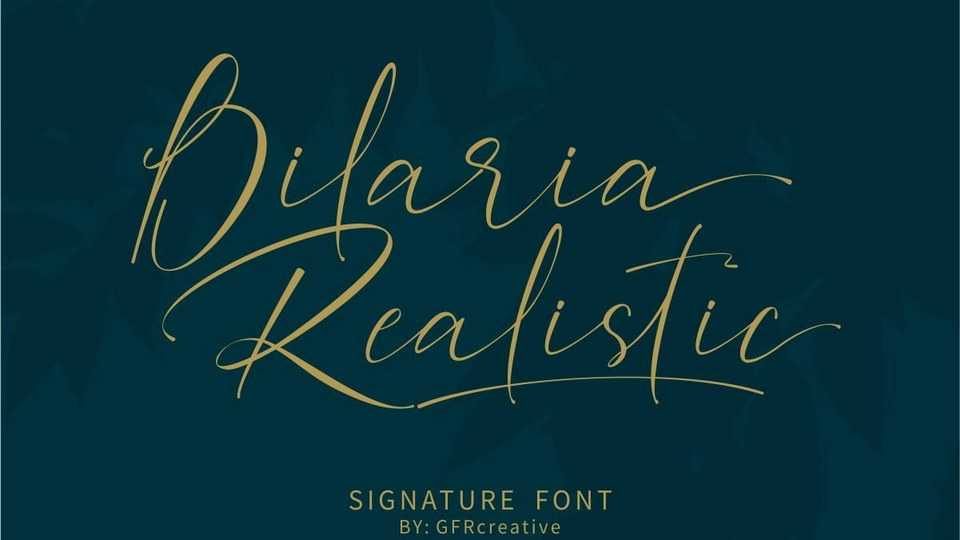
Download Bilaria Realistic font, a lovely and delicate script typeface that exudes elegance and class. Bilaria Realistic was particularly crafted for those who need a beautiful and refreshing look to their designs.
Designer: GFR creative